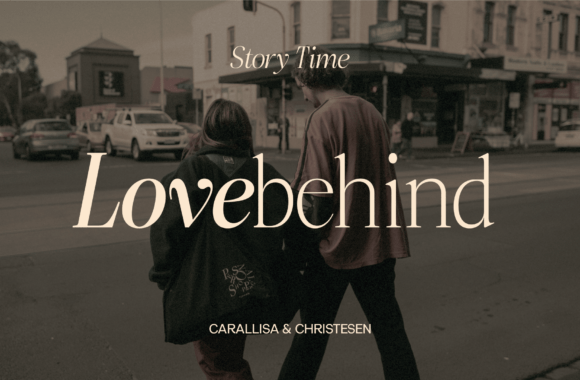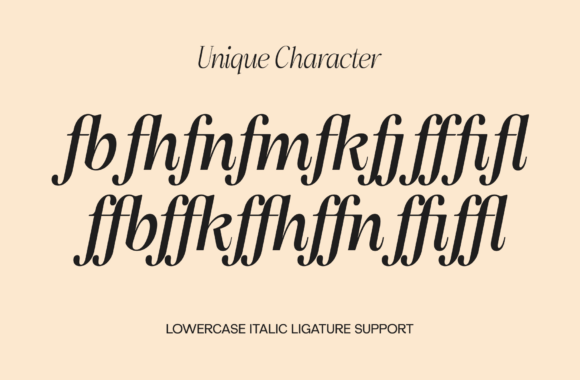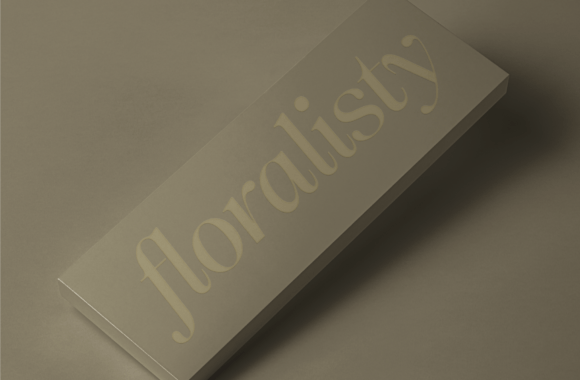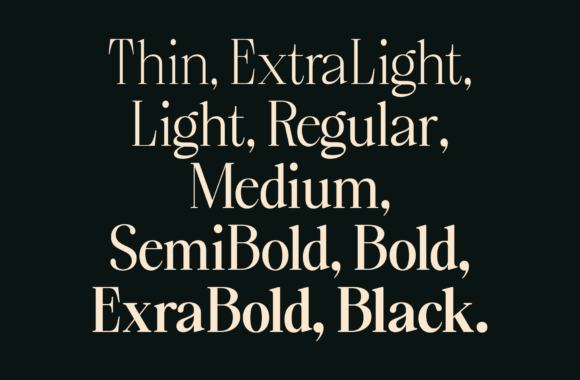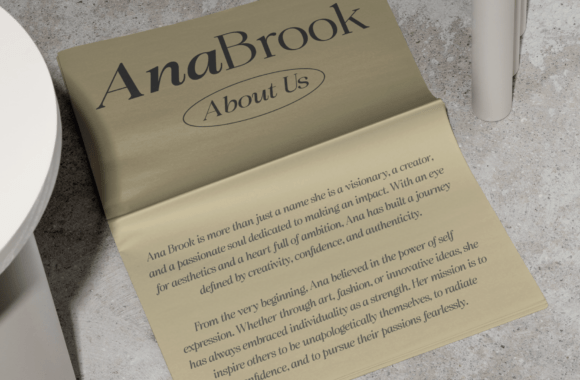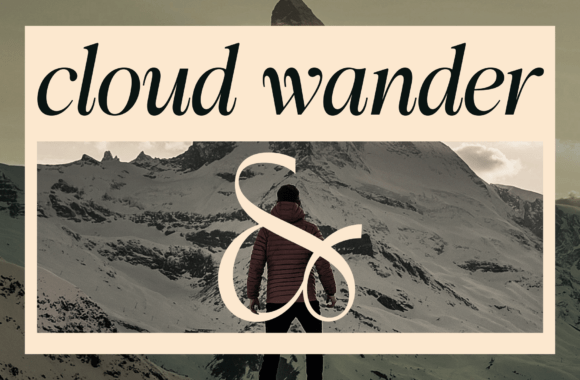
Introduction to Ravelle Font
Have you ever been stuck on a creative project, struggling to find the perfect font to convey your message? The search for the ideal design resource can be daunting, especially when aiming for a high-quality, professional look. But what if I told you that your search is over? Enter the elegant and sophisticated Ravelle Font, a serif typeface that seamlessly blends classic design with modern aesthetics.
This versatile font family, comprising 18 different styles, is designed to provide flexibility and versatility for diverse design applications. From editorial designs to branding and invitations, Ravelle Font exudes a sense of luxury and professionalism, making it an ideal choice for designers seeking both elegance and functionality. With its high contrast and delicate details, this font is perfect for creating unique typographic compositions, especially when paired with a transparent background.
Key Features of Ravelle Font
- Ravelle Font is a high-quality design resource suitable for various creative projects, offering a unique and elegant touch.
- One of the unique characteristics of Ravelle Font is its ability to adapt to different design styles, from modern and minimalist to vintage and ornate.
Honest Review: Ravelle Font
As a designer, I’m always on the lookout for high-quality design resources to elevate my creative projects. The Ravelle Font has caught my attention, and I’m excited to share my honest review with you.
- ✨ The Ravelle Font offers a unique and stylish design that’s perfect for modern projects.
- ✨ The font is highly customizable, allowing for easy adjustments to suit your design needs.
However, I do have some concerns:
- ⚠️ Some users may find the font’s style a bit too bold, which may not be suitable for all projects.
Overall, I’m impressed with the Ravelle Font’s potential. While it may have some limitations, its high-quality design and customization options make it a valuable resource for designers. If you’re looking for a stylish font to elevate your creative project, the Ravelle Font is definitely worth considering.